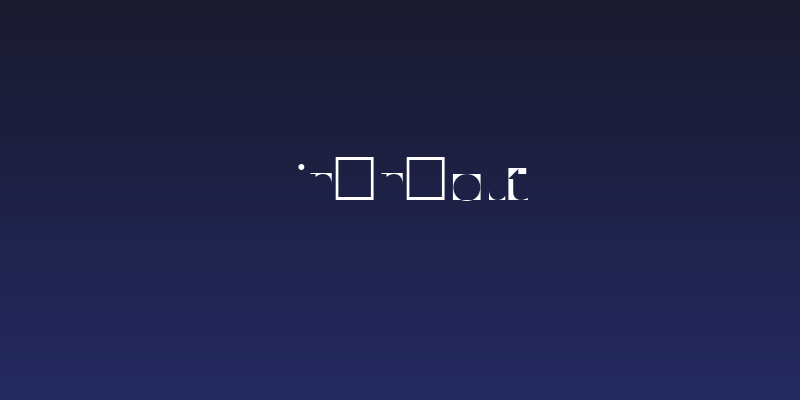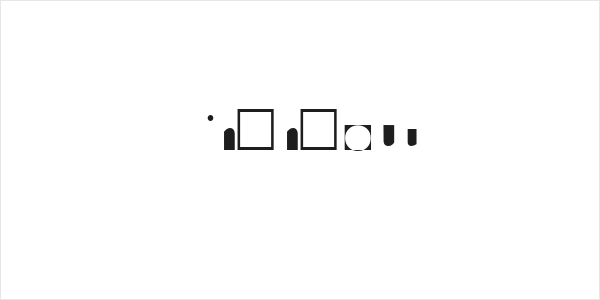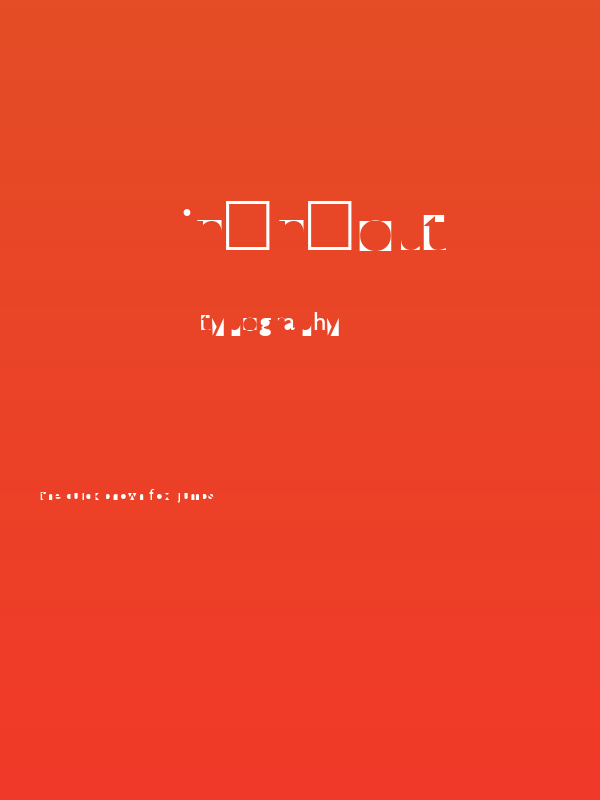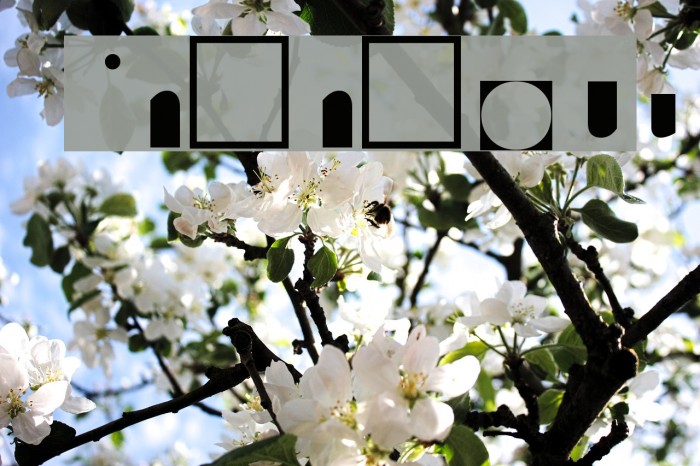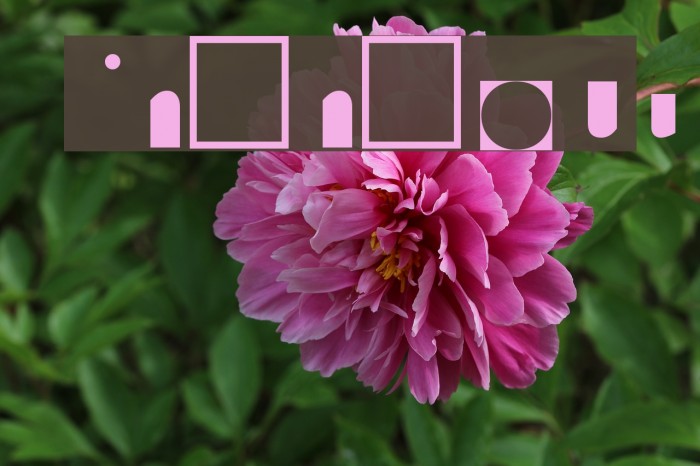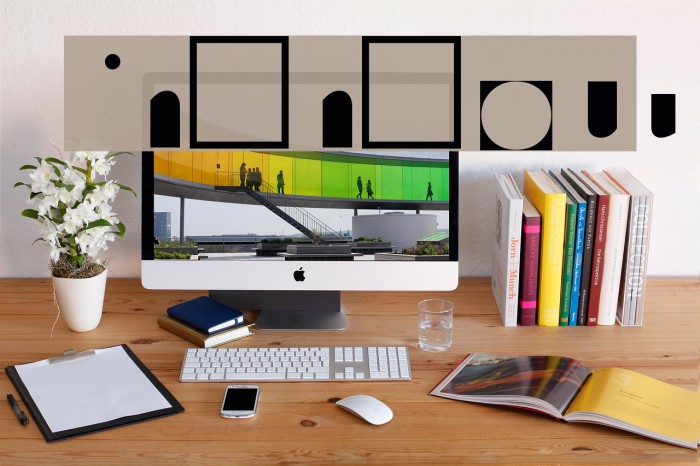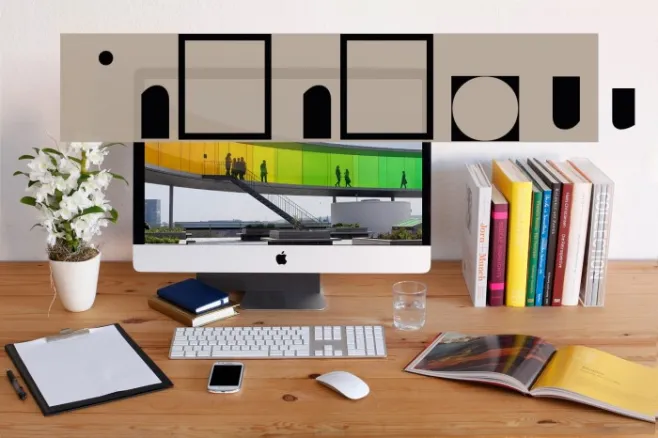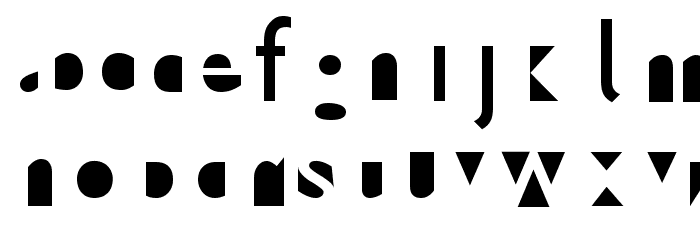
In-n-Out Font
This font features a bold and geometric design with a modern aesthetic. The characters are constructed with sharp angles and clean lines, giving it a futuristic and dynamic appearance. The uppercase letters are particularly striking, with some characters resembling abstract shapes. The lowercase letters maintain a consistent style, complementing the uppercase set. The font's overall look is bold and impactful, making it suitable for attention-grabbing designs. The spacing between characters is tight, enhancing its compact and cohesive feel. This font is ideal for projects that require a strong visual presence.
| Proposed Projects | Ideal for branding, posters, headlines, and any design needing a bold statement. |